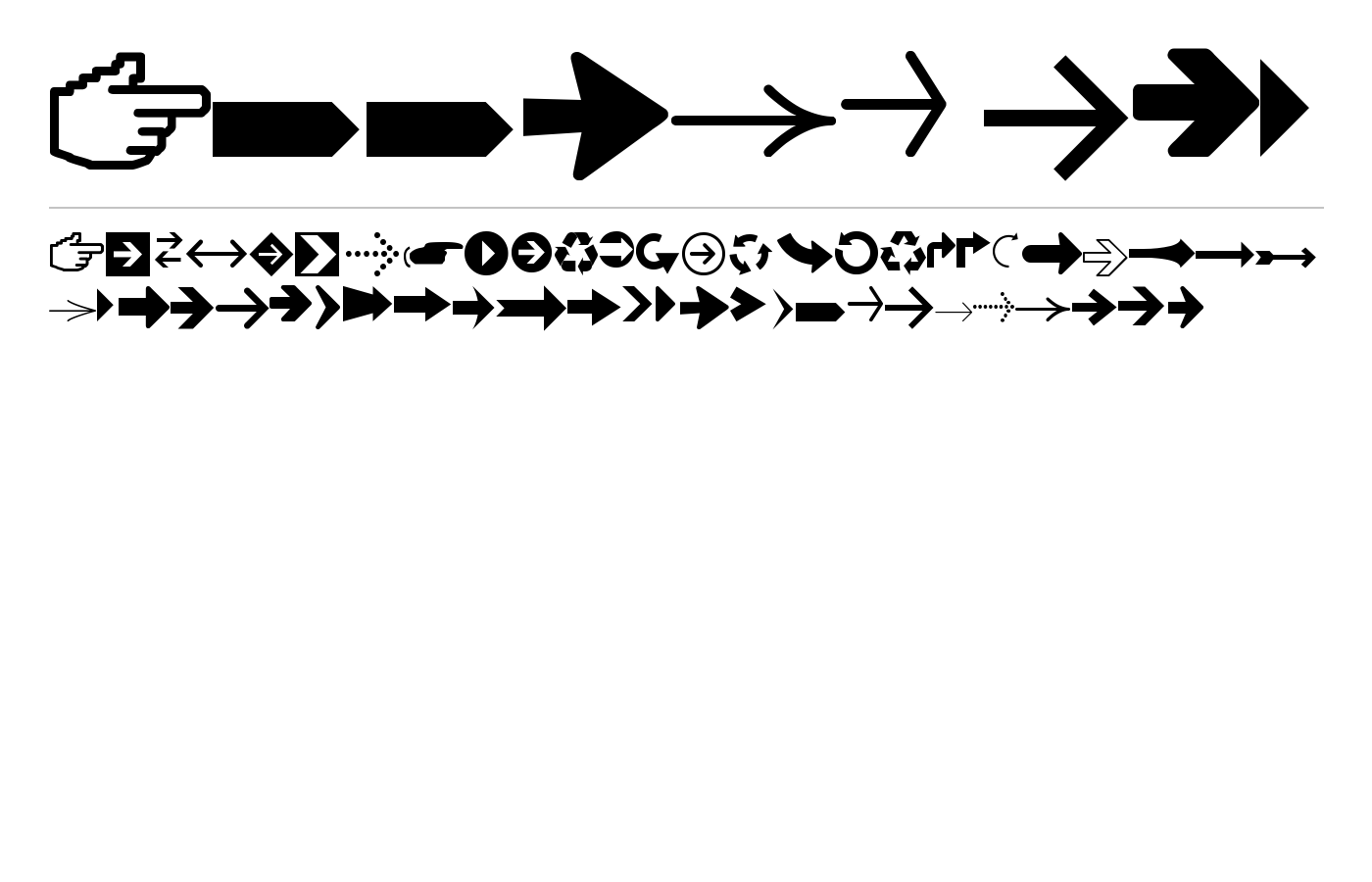
Arrows tfb is a unique symbol font featuring a wide range of arrow designs, from simple and geometric to bold and decorative. This font is perfect for adding directional cues or stylistic emphasis in graphic projects, user interfaces, signage, and presentations. Its diverse arrow styles give it versatility and visual impact, making it useful wherever clear navigation or dynamic visuals are needed.
Arrows tfb Font
About Arrows tfb Font
| Font family | Arrows tfb Font |
| Designer | kaiserzharkhan |